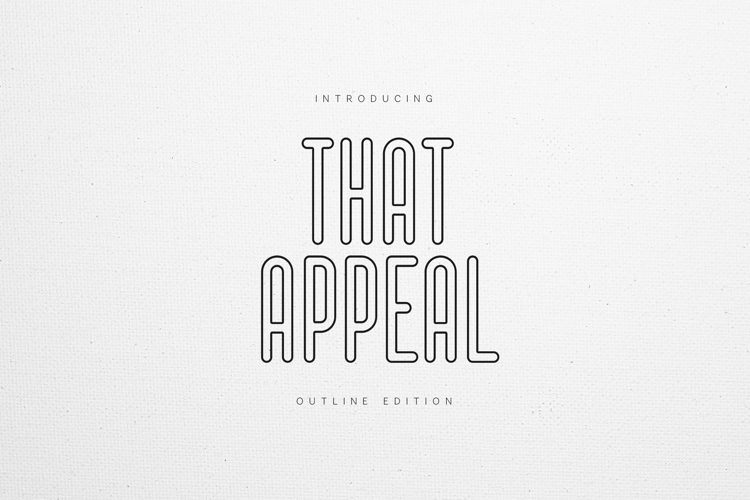
That Appeal Outline Retro Monoline Display Font
That Appeal is a bold retro outline display font built with smooth monoline strokes, rounded terminals, and strong geometric structure.
Inspired by vintage 70s typography and modern minimal design, this typeface features a distinctive double-line outline construction that creates depth, rhythm, and strong visual identity.
Its tall proportions and rounded corners give it a soft yet confident personality — perfect for large headlines, logo concepts, posters, branding systems, packaging, apparel graphics, and editorial layouts.
That Appeal balances decorative character with clean structure, making it highly usable while still standing out.
Bold. Friendly. Distinctive.